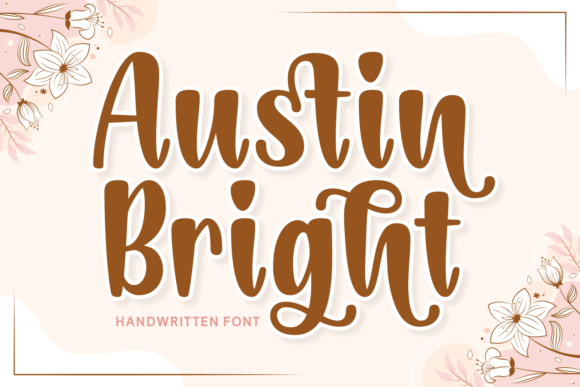
Austin Bright: A Charming Display Font for Modern Design
If you are searching for a Austin Bright free download or simply looking to expand your typography toolkit, this gorgeous display font is an essential addition. The Austin Bright font download offers a unique blend of warmth and sophistication that stands out in the crowded market of digital typefaces. Designed with fluid strokes and whimsical curves, it brings a contemporary style that feels both elegant and approachable. Whether you need a download Austin Bright font free option for personal projects or a premium asset for commercial work, understanding its capabilities is the first step toward creating stunning visuals.
Introduction — What is Austin Bright?
In the world of professional Fonts, finding a typeface that balances playfulness with high-end aesthetics can be challenging. Austin Bright fills this gap perfectly as a premium Display font. It is not just another decorative typeface; it is a character-driven design that exudes personality without sacrificing readability. This font belongs to the Display category, meaning it is optimized for headlines, logos, and large-format text rather than long body copy. Its distinct letterforms make it an ideal choice for designers seeking a touch of charm in their branding or editorial layouts.
Design & Style Analysis
The visual personality of Austin Bright is defined by its organic flow and soft edges. Unlike rigid geometric sans-serifs, this font embraces variation, giving each letter a handcrafted feel while maintaining structural integrity.
Fluid Letterforms and Whimsy
The core strength of this free Display font for Fonts enthusiasts lies in its fluid strokes. The curves are exaggerated yet controlled, creating a sense of movement that captures attention immediately. When compared to other best Display fonts for use case scenarios involving lifestyle brands or creative agencies, Austin Bright offers a more intimate connection with the viewer through its subtle irregularities.
Weight and Spacing Dynamics
While primarily available in a single weight, the spacing (kerning) is meticulously adjusted to ensure harmony between characters. This makes it versatile for various use case applications where tight tracking might otherwise look cluttered. The open counters and generous white space contribute to its legibility, even at smaller sizes on mobile screens.
Best Uses for Austin Bright
Understanding where to apply this typeface is crucial for maximizing its impact. Here are the top scenarios where Austin Bright shines.
Austin Bright for Logo Design
For brand identity, a logo needs to be memorable. Austin Bright for logo design provides a distinctive mark that can serve as a standalone icon or a stylized wordmark. Its unique curves help create a custom feel that generic fonts cannot achieve, making it perfect for boutique shops, cafes, and creative studios.
Austin Bright for Branding and Packaging
When developing a cohesive visual identity, consistency is key. Using Austin Bright for branding ensures that your packaging, business cards, and marketing materials share a unified voice. The font's elegance elevates product packaging, making items appear more premium and thoughtful.
Austin Bright for Wedding Invitations and Cards
Events require a tone of celebration and intimacy. Austin Bright for wedding invitations/cards/typography is a top-tier choice for saving-the-dates, ceremony programs, and RSVP cards. The warm aesthetic aligns perfectly with romantic themes, adding a sophisticated touch to paper goods.
Austin Bright for Posters and Social Media
Digital platforms demand immediate engagement. Austin Bright for posters/social media/packaging helps your content stand out in crowded feeds. Its bold presence works well for event flyers, Instagram story headers, and promotional banners where grabbing attention is the primary goal.
Font Pairing & Combinations
Selecting the right companion typeface is vital for balanced typography. Many designers ask, what fonts pair well with Austin Bright? Since Austin Bright is a display font with strong character, it pairs best with clean, neutral typefaces that allow it to take center stage.
For a classic look, pair it with a humanist serif like Merriweather or Lora. This combination creates a timeless editorial feel suitable for magazines or blog headers. If you prefer a modern aesthetic, combine it with a geometric sans-serif such as Montserrat or Poppins. This Austin Bright font pairing strategy ensures that your body text remains highly readable while the headline retains its flair. Finding the best font combinations with Austin Bright often involves testing contrast in size and weight to maintain hierarchy.
Designer Notes & Tips
To get the most out of this typeface, consider these practical tips. First, test the font in black and white to ensure the shapes hold up without color distractions. Second, check small-size readability; while it excels at large scales, it may lose detail when scaled down too much. Finally, compare it against similar options. When evaluating Austin Bright vs similar font alternatives, note its superior curve fluidity and unique character set. By following these guidelines, you can leverage the full potential of this premium Display font in your next creative endeavor.